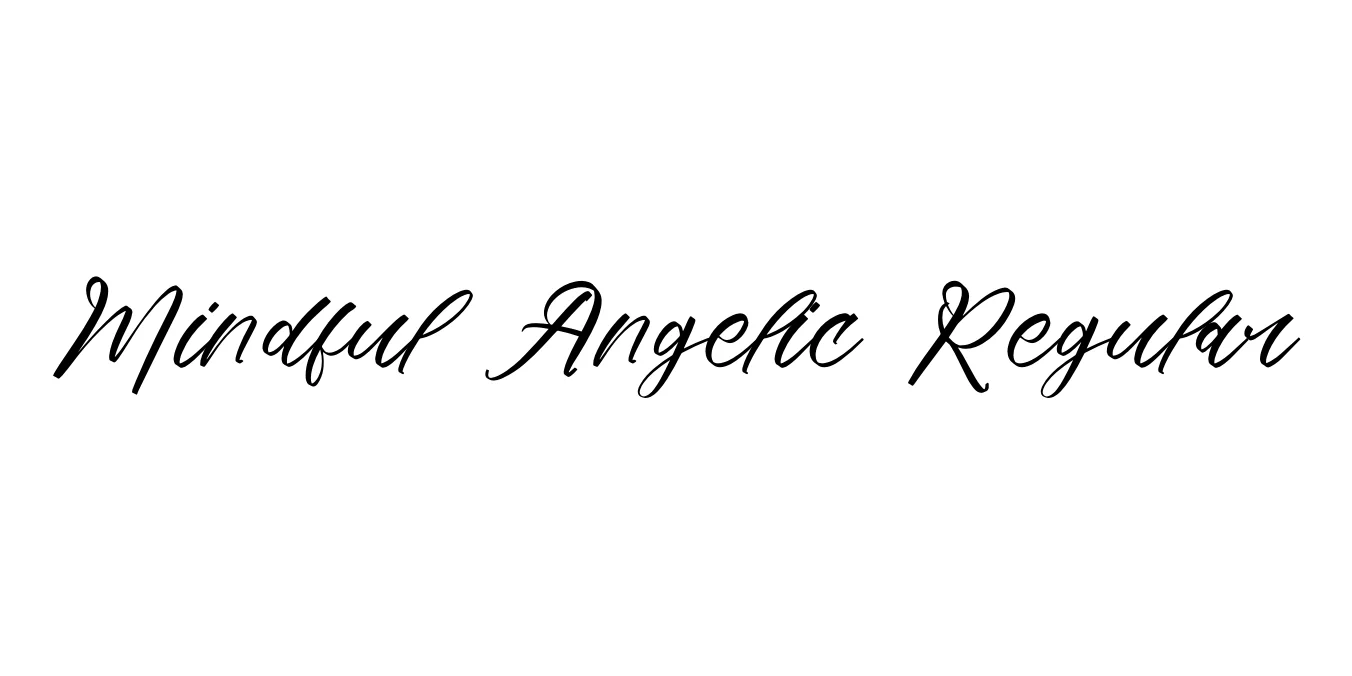
Mindful Angelic Regular
Designed by Arizal (Gisella Studio)
The Mindful Angelic Regular is a sophisticated and fluid script font that captures the essence of refined handwriting. With its delicate curves and balanced letterforms, this typeface offers an air of elegance and grace, making it a favorite for designers looking to add a personal, high-end touch to their digital and print projects.
Crafted with meticulous attention to detail, the font features a smooth flow that mimics authentic calligraphy. It is PUA encoded, allowing users to easily access all of its stunning glyphs and swashes without needing specialized software. This font is particularly effective for luxury branding, wedding stationery, and romantic editorial designs where a touch of human warmth is required.
Mindful Angelic Regular Best Uses
Ideal for elegant invitations, place cards, and envelopes.
Perfect for creating luxury logos and fashion-forward business identities.
Excellent for designing inspirational quotes and stylish Instagram graphics.